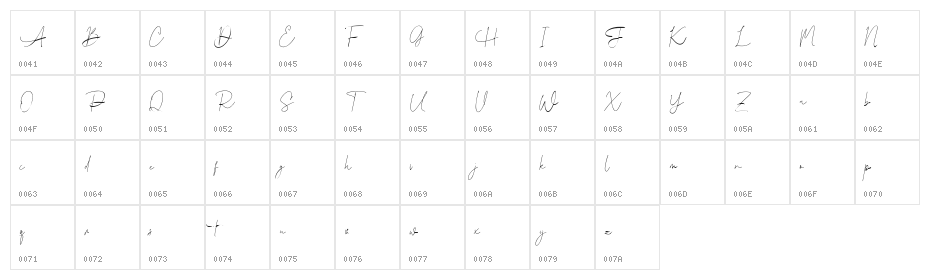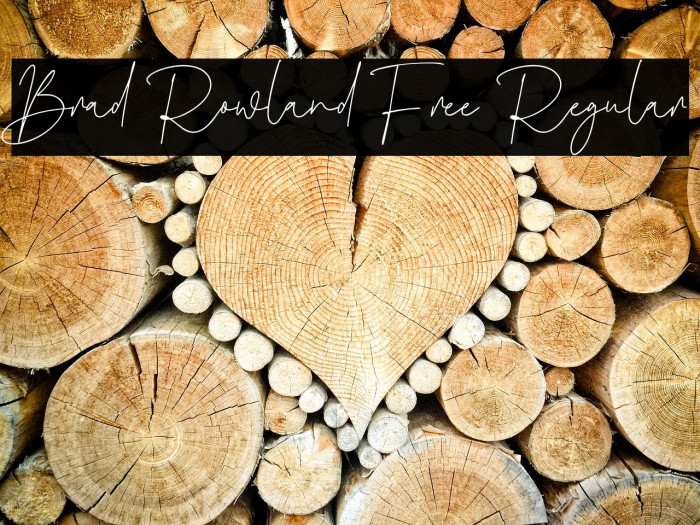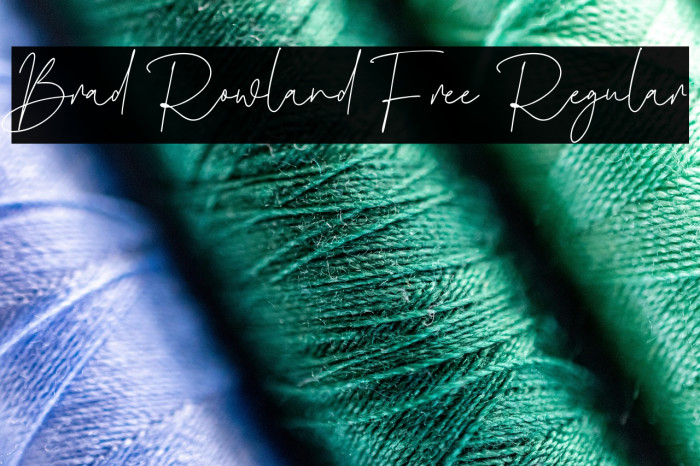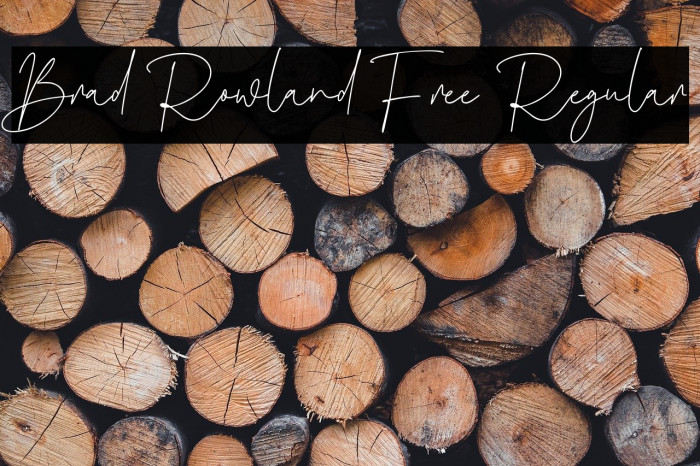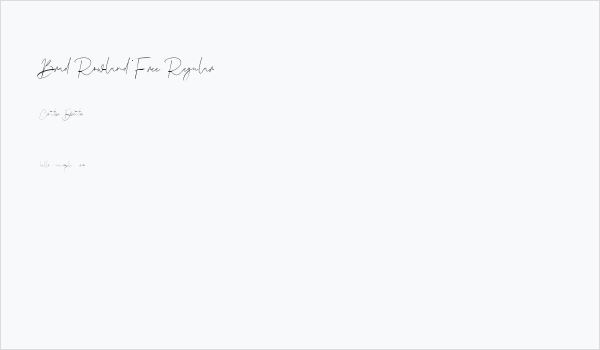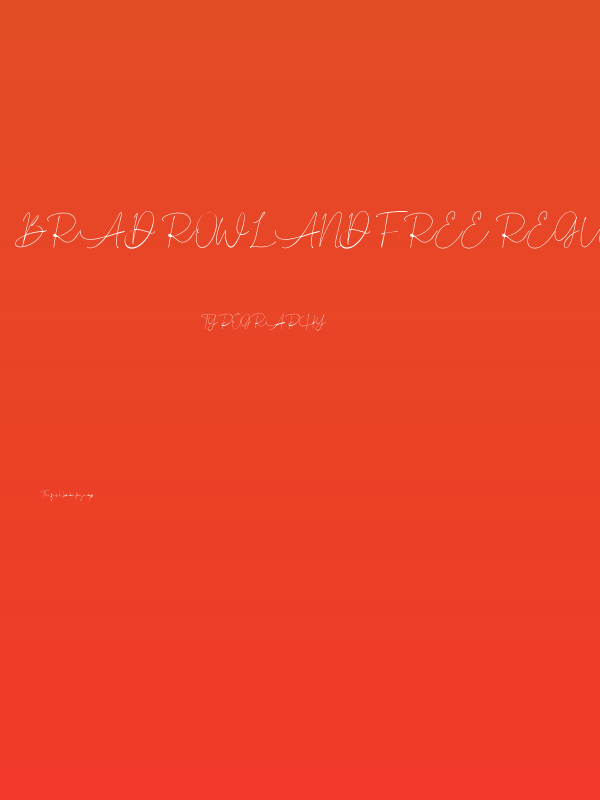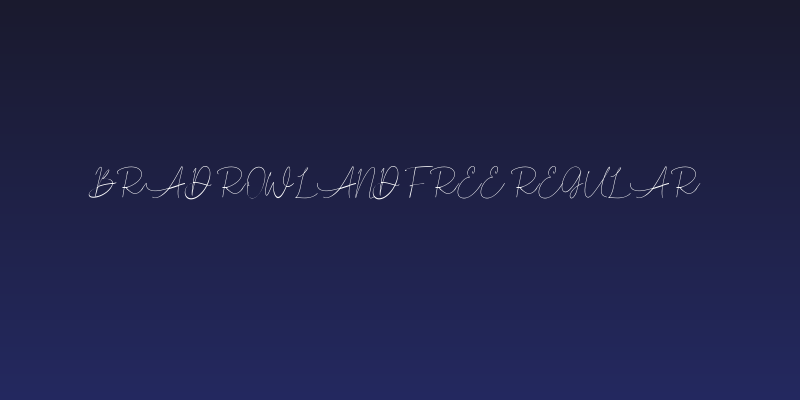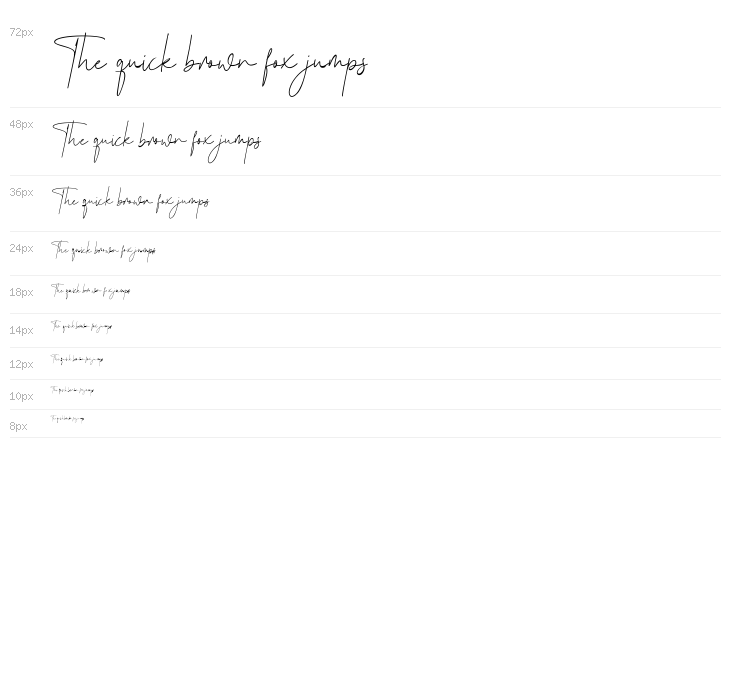
Brad Rowland Free Regular Font
Brad Rowland Free Regular Description
A delicate, handwritten script font with flowing, connected letters and a casual elegance.
| Use Case | Logos, Headlines |
| Proposed Projects | Invitations, greeting cards, personal branding. |